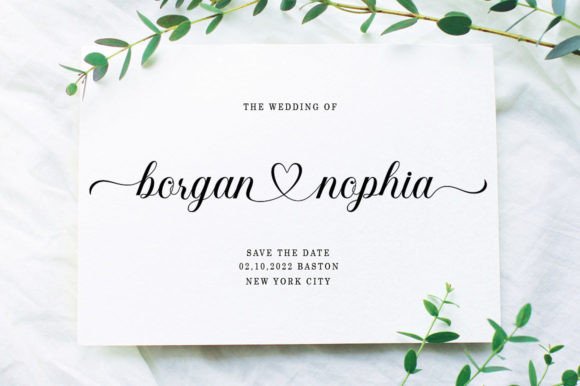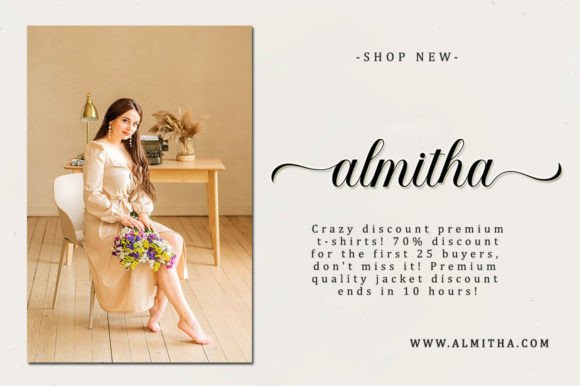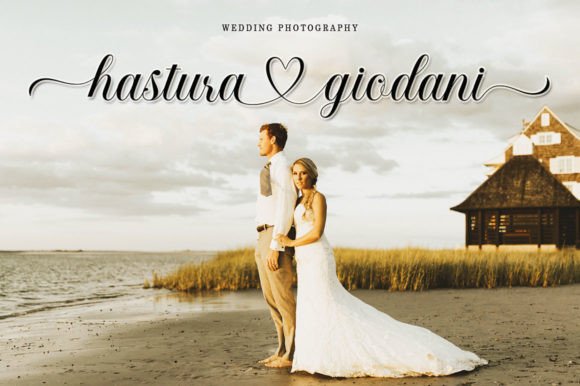
About the Hailea Honey Font
Discover the charm of Hailea Honey Font. This font is a perfect blend of modern aesthetics and classic appeal. Hailea Honey is a beautiful script perfect for branding, wedding invitations, and other romantic projects.
This love-centered look makes it perfect for use in all your design projects be it logos, labels, packaging designs, blog titles, posters, wedding designs, social media posts, Instagram designs, etc. 🙂
Hailea Honey’s elegant, flowing forms are best suited for headlines, short text blocks, and applications requiring a touch of romantic charm. It excels in branding for businesses related to weddings, beauty, fashion, or artisanal goods. Use it sparingly in logos, as a strong visual accent in packaging, or for short, impactful quotes in marketing materials. Avoid using it for body text or lengthy paragraphs; its delicate nature would quickly become fatiguing to read.
Its personality is undeniably feminine and sophisticated. To balance this, consider pairing Hailea Honey with a clean sans-serif like Lato for body text or a geometric sans-serif like Montserrat for a modern contrast. For a more traditional feel, a classic serif like Garamond can create pleasing visual harmony.
Pairing it with a playful script font could also work if aiming for a more whimsical design, but be sure to carefully manage the balance to prevent visual clutter. Avoid pairing it with overly bold or heavily textured fonts, which would overshadow its delicate character.
Hailea Honey Font Usage Examples
Hailea Honey Font Example